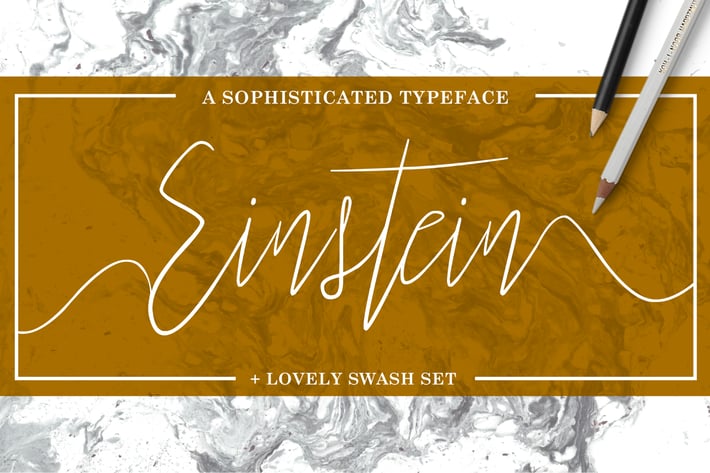
Einstein Font
ABOUT EINSTEIN :::::::::::::::::::::::::::::::::::::::::::
Einstein is an elegant yet flirty script font with a playful baseline & some sweet bonuses! It’s short-to-tall brush strokes give it a fun and stylish aesthetic perfect for prints, wedding stationary, greeting cards, typography quotes, branding, and more! Plus add the End Swashes to your designs and catch your customers eye every time!
Use it in ink, watercolor, or gold foil based designs or on its own as a whimsical handcrafted masterpiece!
THE EXTRAS :::::::::::::::::::::::::::::::::::::::::::::::::::
26 Upper & Lowercase Opening Ornaments
26 Upper & Lowercase Ending Ornaments
* Over 60 Bonus Glyphs including Language Support and some other fun characters
Add these beautiful swashes to your designs and give it that elegant yet hand-crafted feel. You DO NOT need Illustrator or Photoshop to fully utilize these. Hurray!